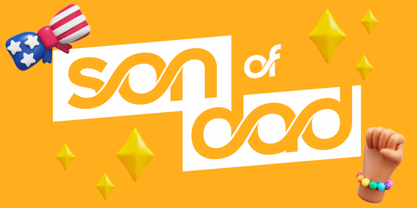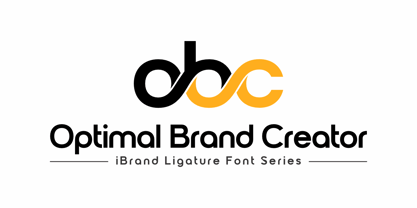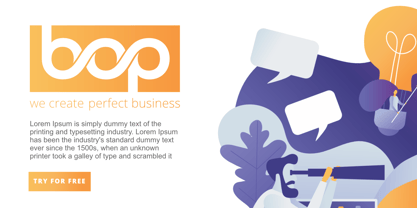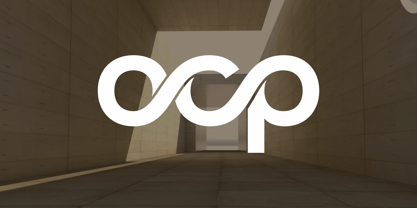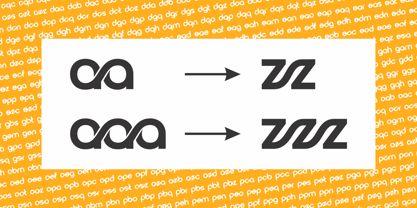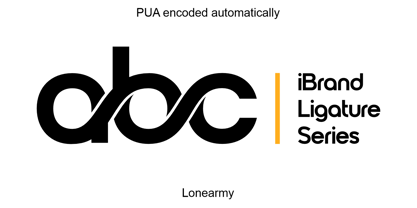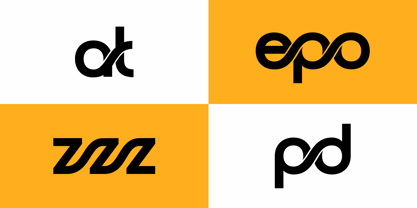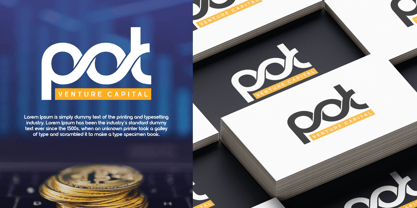
Ibrand Ligature
by Lone Army
The Ibrand Ligature Font Family was designed by Alfin Weniardi and published by Lone Army. Ibrand Ligature contains 1 styles. More about this family
iBrand Font is a meticulously crafted typeface designed specifically for logos, branding, headers, and titling. Now enhanced with a sleek ligature version, it's the perfect choice for creating unique and memorable icon logos. With precise kerning and spacing tailored for impactful branding materials, iBrand Font ensures your designs make a lasting impression. Please note, iBrand Font is not suitable for body text, but excels in visual applications where every detail matters. Elevate your design projects with iBrand Font today!!
I am a designer specializing in monogram and wordmark logo designs. Hailing from the captivating region of Borobudur, Central Java, Indonesia, my cultural heritage and surroundings have greatly influenced my creative journey. As a logo designer with a background rooted in this rich cultural tapestry, I strive to infuse my fonts with a touch of local essence, while still ensuring they maintain their visual appeal and functionality for display and text purposes. Each font I create is a testament to the vibrant traditions and artistic heritage of my homeland. I am thrilled to share my creative products with you. Thank you for your support.